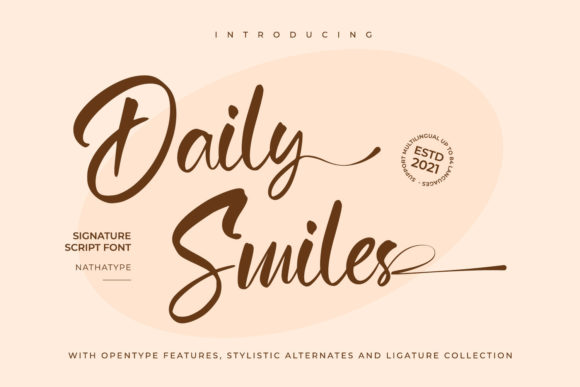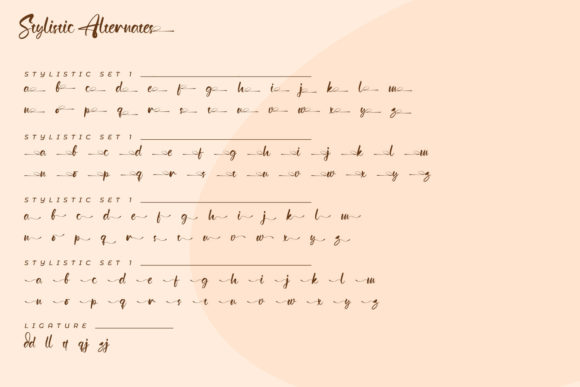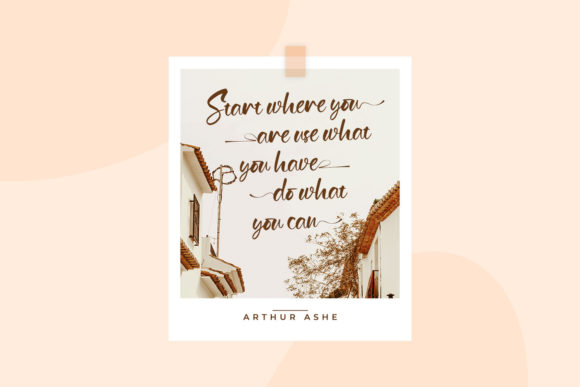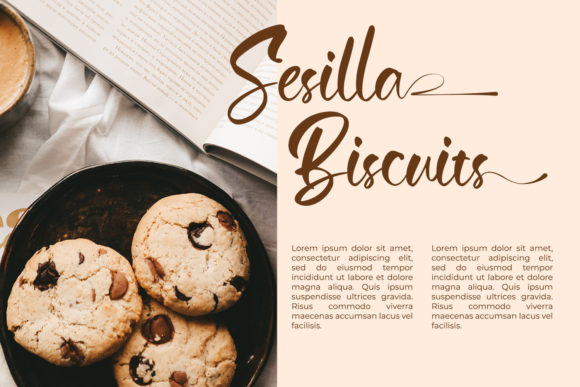
About Daily Smiles Font
Daily Smiles is a beautiful, well balanced and vintage styled script font. It is defined by smooth curves and is perfect for fashion branding or editorial designs. This font is PUA encoded which means you can access all glyphs and swashes with ease!